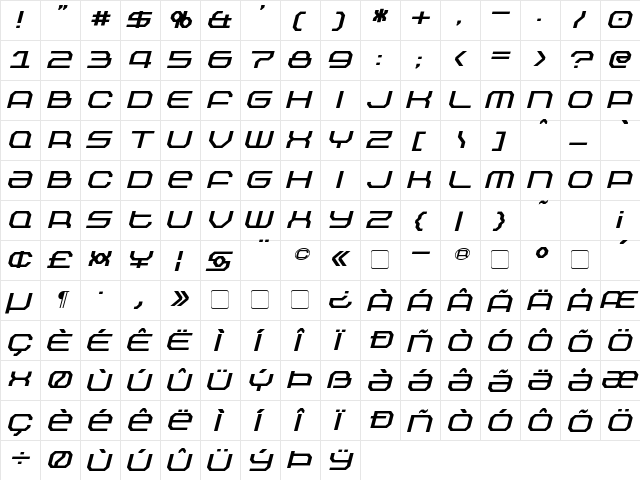
Outland Italic
Italic · Pixel Sagas Neale Davidson ·
Design Context for Outland Typeface
Outland takes a measured approach to typography — its balanced proportions and neutral character make it a reliable workhorse for both digital and print work. Its italic angle brings a sense of urgency and motion to the letterforms.
Pro Tip: Try Outland for annotation and caption copy alongside an upright companion — the contrast in angle creates a dynamic but ordered typographic system.